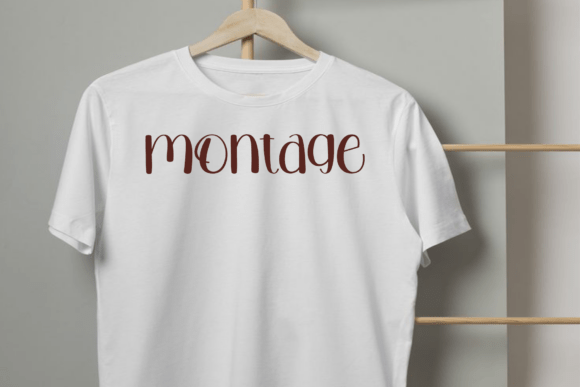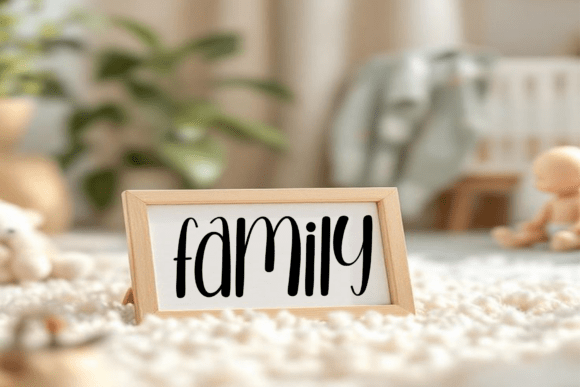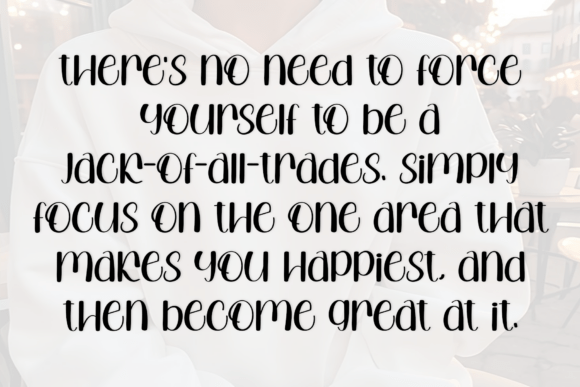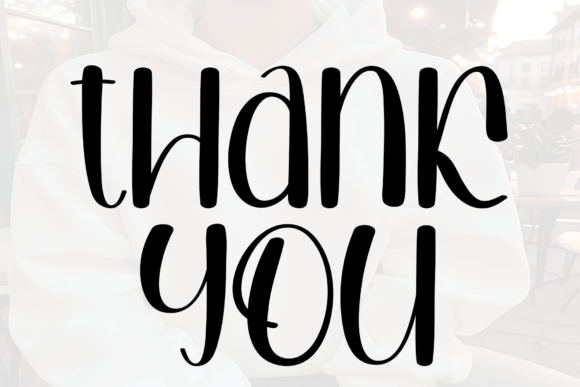
Getting Your Creative Groove On
There’s nothing quite like the thrill of brainstorming a new design project, and for many creatives, it all starts with the perfect font. The moment you stumble upon that one typeface that captures the essence of your vision – it’s like the whole design unfolds before your eyes. For those who crave that perfect blend of organic charm and strong typographic presence, the Hoodie Mockup Font is sure to be a game-changer.
This bold and sturdy handwritten font is designed to transport you to a world of adventure and freedom. With its thick, solid strokes and “bouncy” rhythm, Hoodie Mockup Font adds a friendly and approachable character to any design. Whether you’re crafting outdoor lifestyle branding, organic product packaging, or travel-themed graphics, this typeface is sure to make a lasting impression.
Hoodie Mockup Font Key Features
- Unique Hand-Drawn Design: The Hoodie Mockup Font features a unique, hand-drawn design that adds a personal touch to any mockup or design.
- Customizable: The font includes OpenType features, allowing designers to customize the font’s appearance and behavior.
Hoodie Mockup Font Review
Overall, I was quite impressed with the Hoodie Mockup Font. It’s a great tool for designers looking to create professional-looking mockups quickly and efficiently. ✨ Here are some things that stood out to me:
- Easy to use interface: The font is straightforward to use, with a user-friendly interface that makes it simple to create high-quality mockups.
- Customizable: I liked the ability to customize the font to fit my brand’s style, with options for color, size, and more.
- Fast rendering: The font rendered quickly, even with complex designs, which was a big plus.
Of course, no font is perfect, and I did encounter a few limitations. ⚠️ Here are some areas for improvement:
- Limited font options: While the font is customizable, there are only a few options available, which may not be suitable for all designers.
- No advanced features: Some advanced designers may find the font lacking in features, such as the ability to create custom shapes or use advanced typography.
Overall, I’d give the Hoodie Mockup Font 4 out of 5 stars. It’s a solid tool for designers who want to create professional-looking mockups quickly and easily. While it may not be perfect, it’s definitely worth checking out.
Tips for Getting the Most Out of Hoodie Mockup Font
To get the most out of Hoodie Mockup Font, use it to create eye-catching graphics and designs that showcase your brand’s personality. Experiment with different font sizes, colors, and styles to create a unique look.
Hoodie Mockup Font is commonly used in:
- Graphic design projects
- Social media graphics
- Printed materials such as flyers and brochures
Alternatives to Hoodie Mockup Font for Designers
Pacifico is a beautiful, elegant script font that is perfect for creating a relaxed and casual atmosphere. It is ideal for use in branding, logos, and typography-based designs. When to use: Pacifico is great for designs that require a laid-back, beachy vibe.
Comparison: Pacifico has a more refined and polished look compared to Hoodie Mockup Font, making it suitable for more formal designs. It lacks the casual, distressed feel of Hoodie Mockup Font.
Great Vibes is a modern, elegant script font that is perfect for creating a sophisticated and stylish atmosphere. It is ideal for use in branding, logos, and typography-based designs. When to use: Great Vibes is great for designs that require a touch of elegance and sophistication.